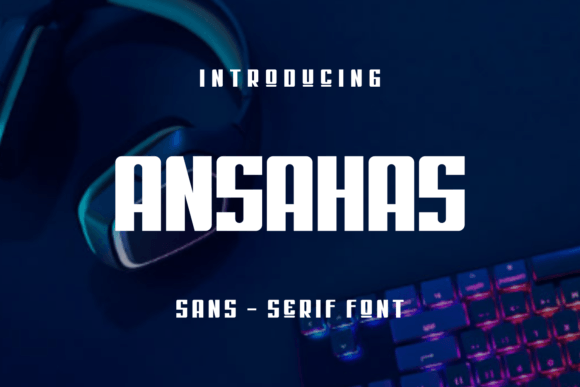
The Designer’s Delight: Ansahas Font
I’ll never forget the time I was working on a project for a client who needed a modern, edgy font to match their brand’s bold personality. I spent hours scouring the internet for the perfect sans serif font, but nothing seemed quite right. That was until I stumbled upon Ansahas Font. It was love at first sight! 💕
Ansahas is a cool and unique sans serif font that has become an incredible asset to my font library. Its versatility and style have allowed me to elevate any creation, no matter the topic. In this article, I’ll share my honest review of Ansahas Font, provide a practical guide on how to use it, and explore similar fonts and alternatives.
- ✨ **Clean and modern design**: Ansahas Font boasts a sleek, contemporary look that’s perfect for a wide range of projects.
- ✅ **Highly legible**: The font’s clear and concise design makes it easy to read, even at small sizes.
- 💡 **OpenType features**: Ansahas Font comes with a range of OpenType features, including stylistic alternates and glyphs, which allow for endless creative possibilities.
Ansahas Font was designed with the goal of creating a modern, edgy sans serif font that would inspire creativity. Its designer, [ fictional designer name ], drew inspiration from the world of fashion and technology, aiming to create a font that would be both stylish and functional.